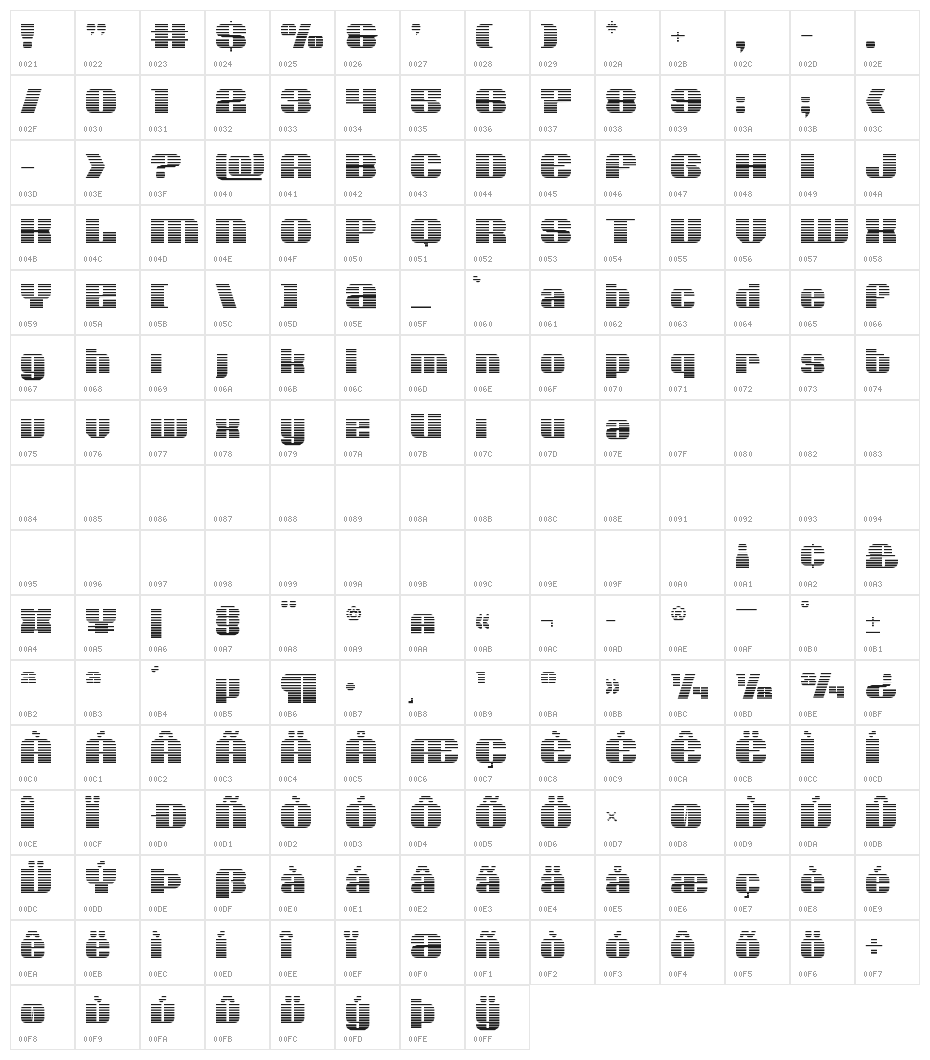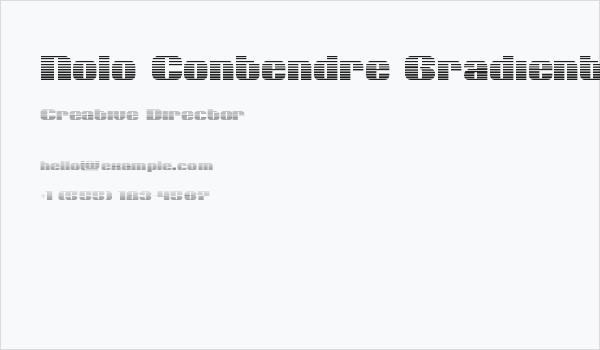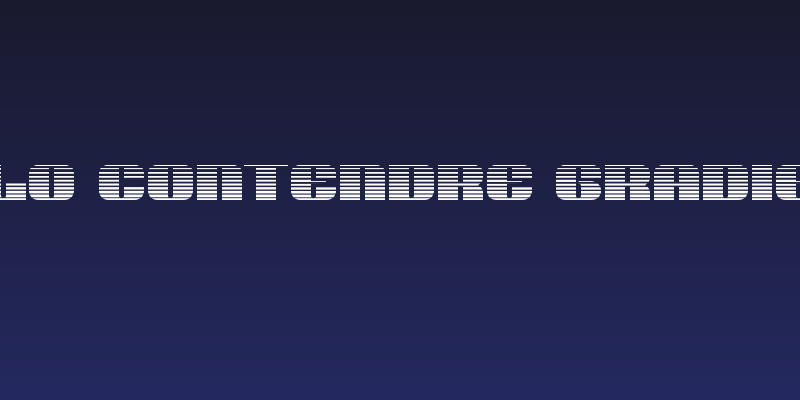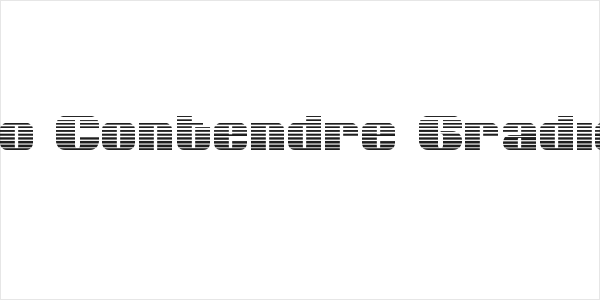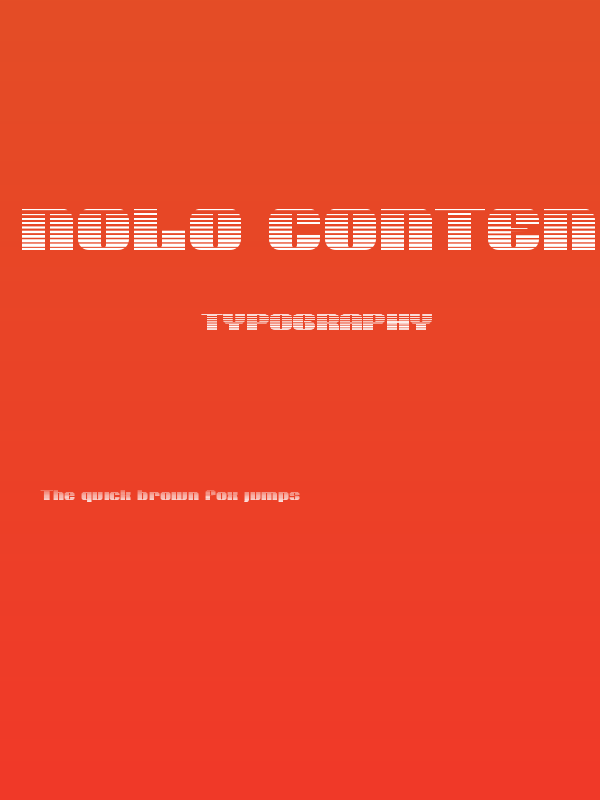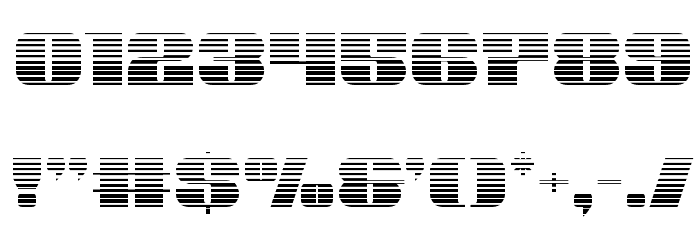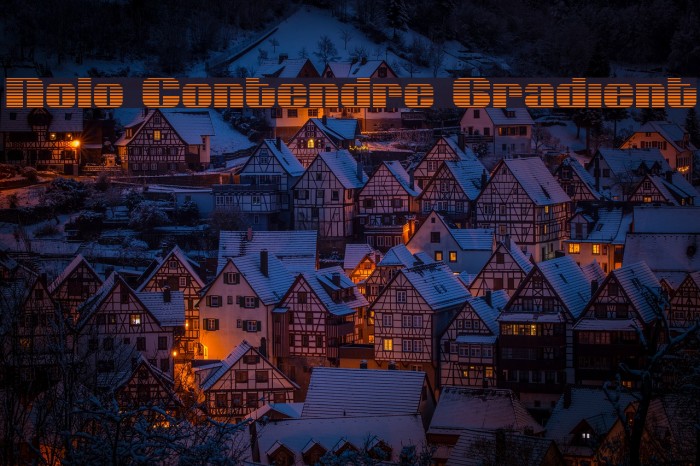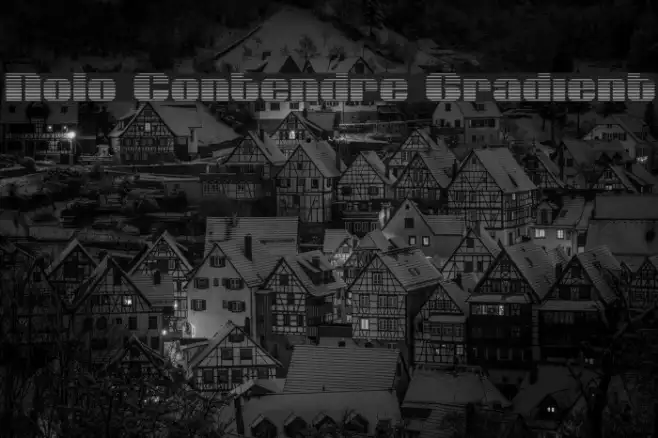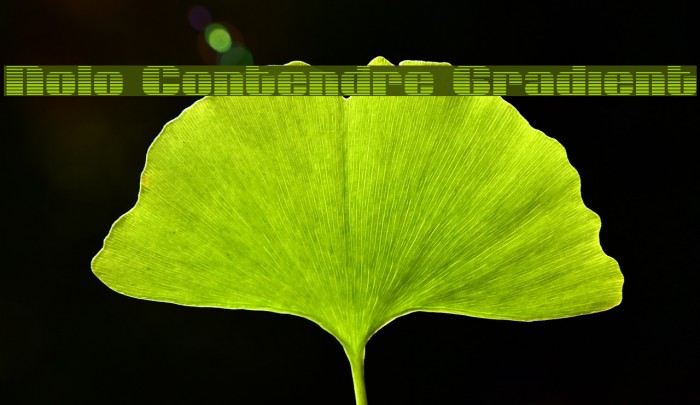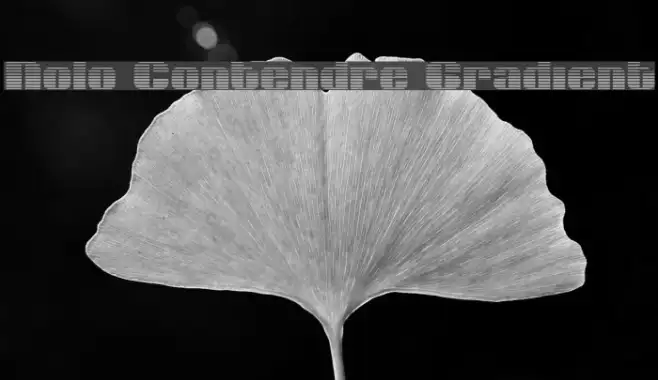
Nolo Contendre Gradient Font
Nolo Contendre Gradient Description
This font features a bold, striped design that creates a sense of movement and depth. Each character is composed of horizontal lines that form the letter shapes, giving it a unique, modern look. The uppercase and lowercase letters maintain a consistent style, with clean, geometric forms. The numbers and special characters are equally bold and follow the same striped pattern, ensuring uniformity across all elements. This font's distinct appearance makes it stand out, ideal for eye-catching designs.
| Proposed Projects | Ideal for branding, posters, headlines, and any design project that requires a striking, modern aesthetic. |